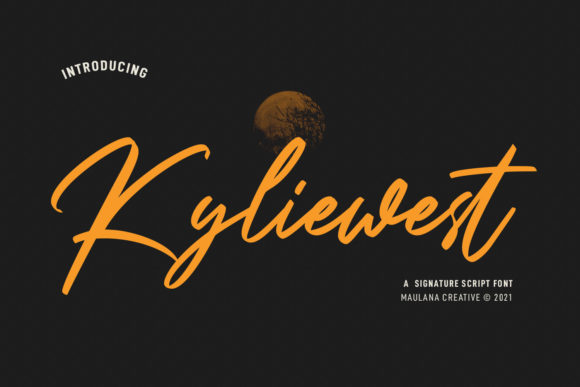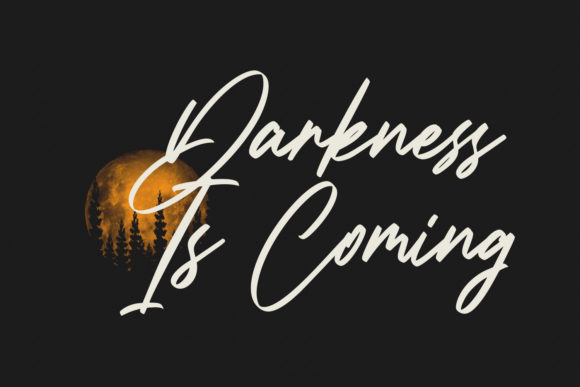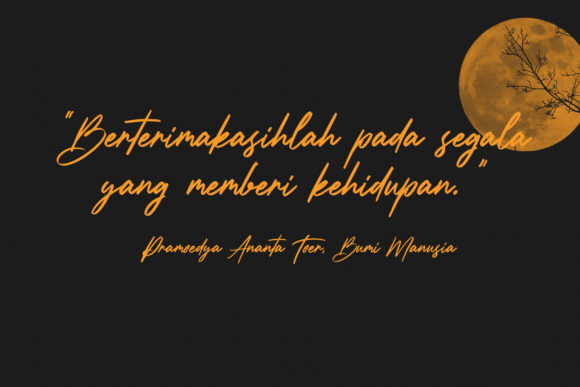
About Kyliewest Signature Font
Kyliewest Signature is a lovely and delicate script font that exudes elegance and class. This font was particularly crafted for those who need a beautiful and refreshing look to their designs.